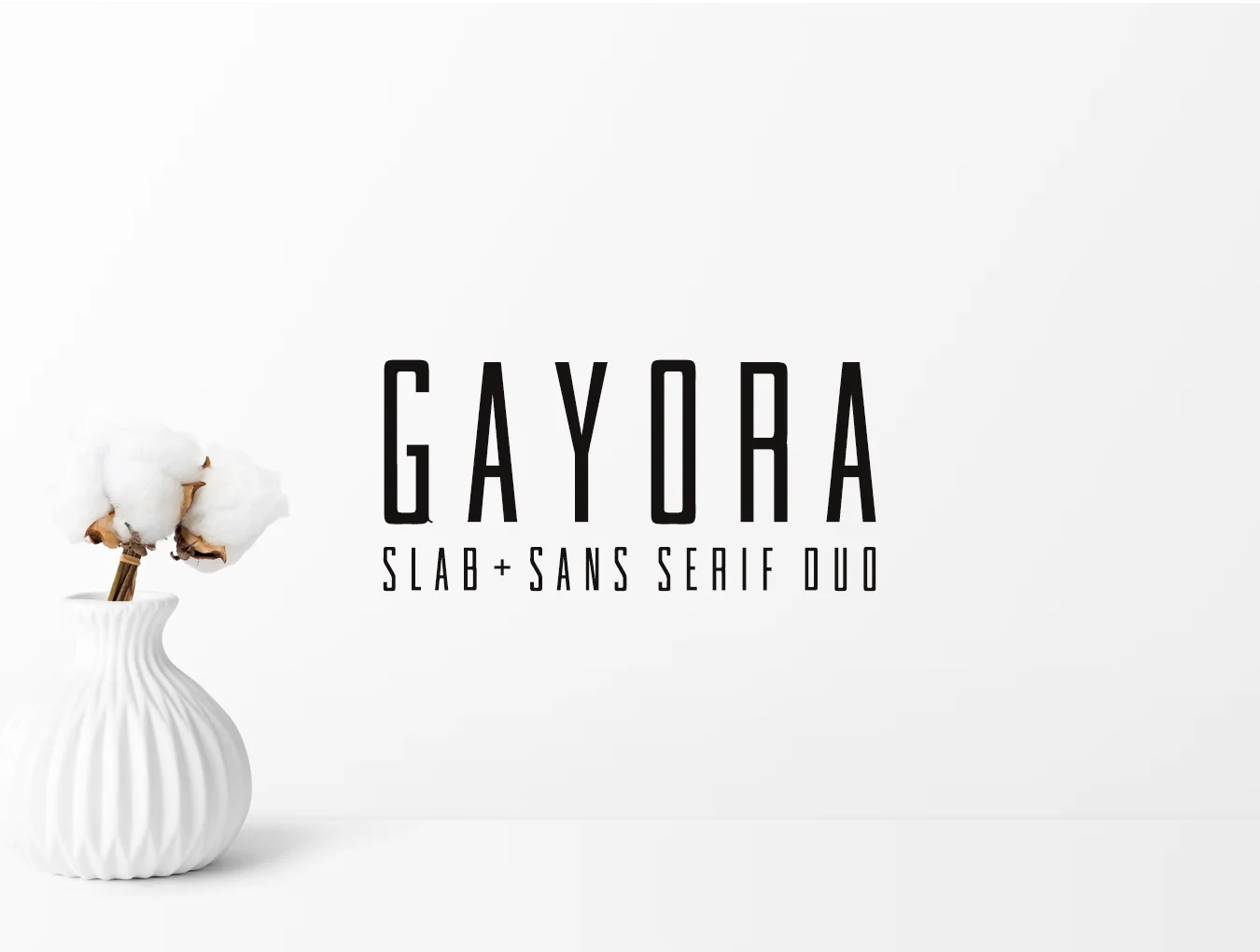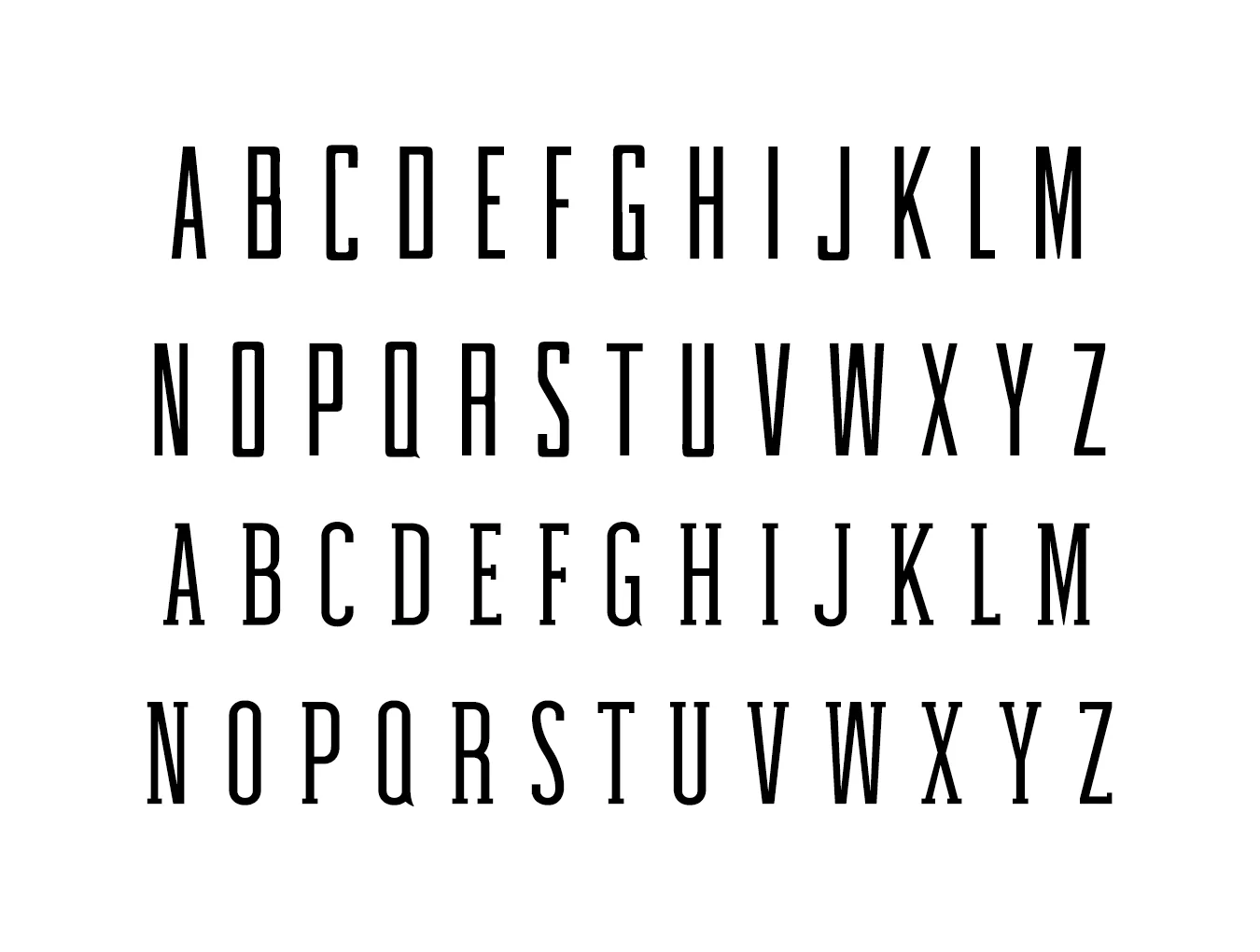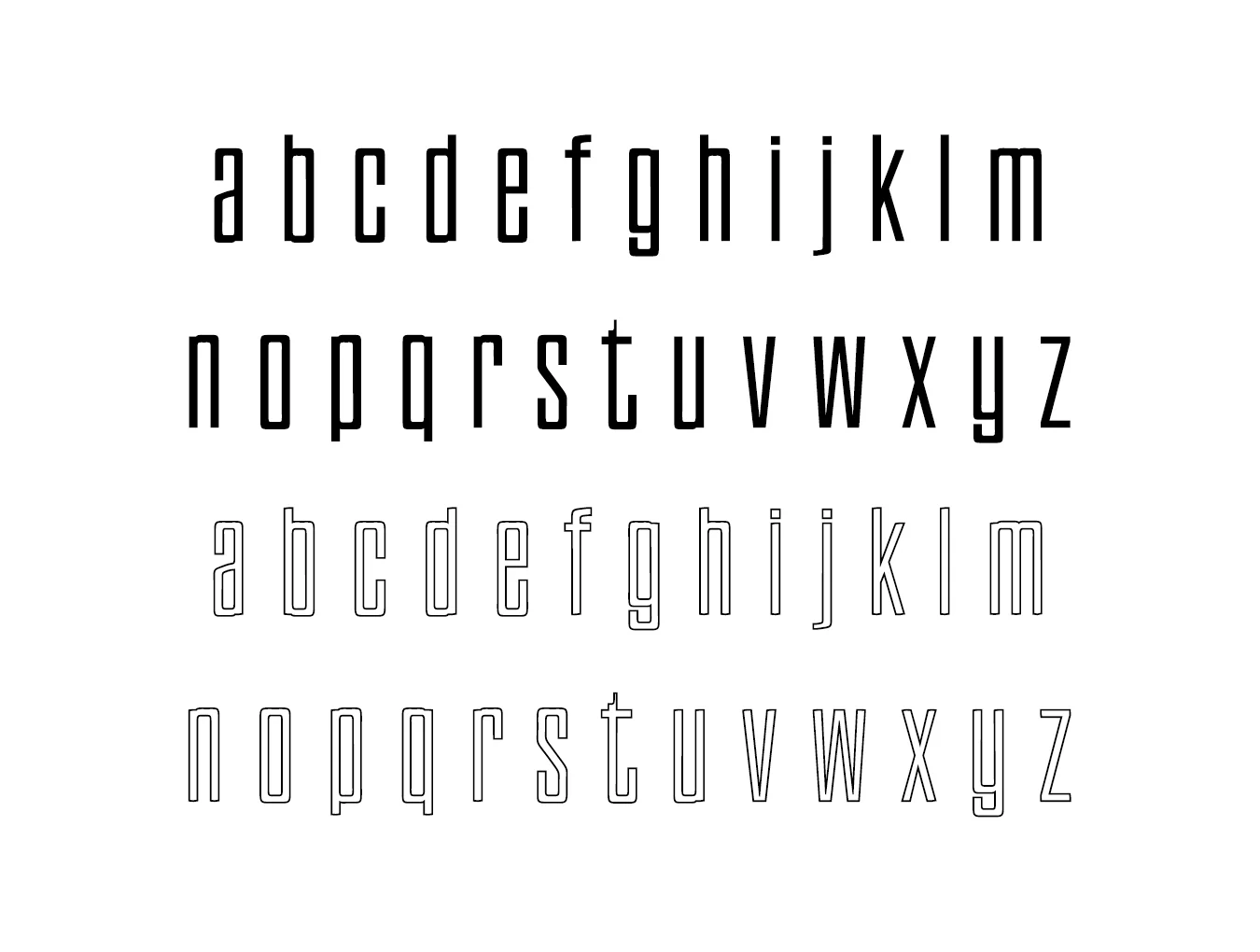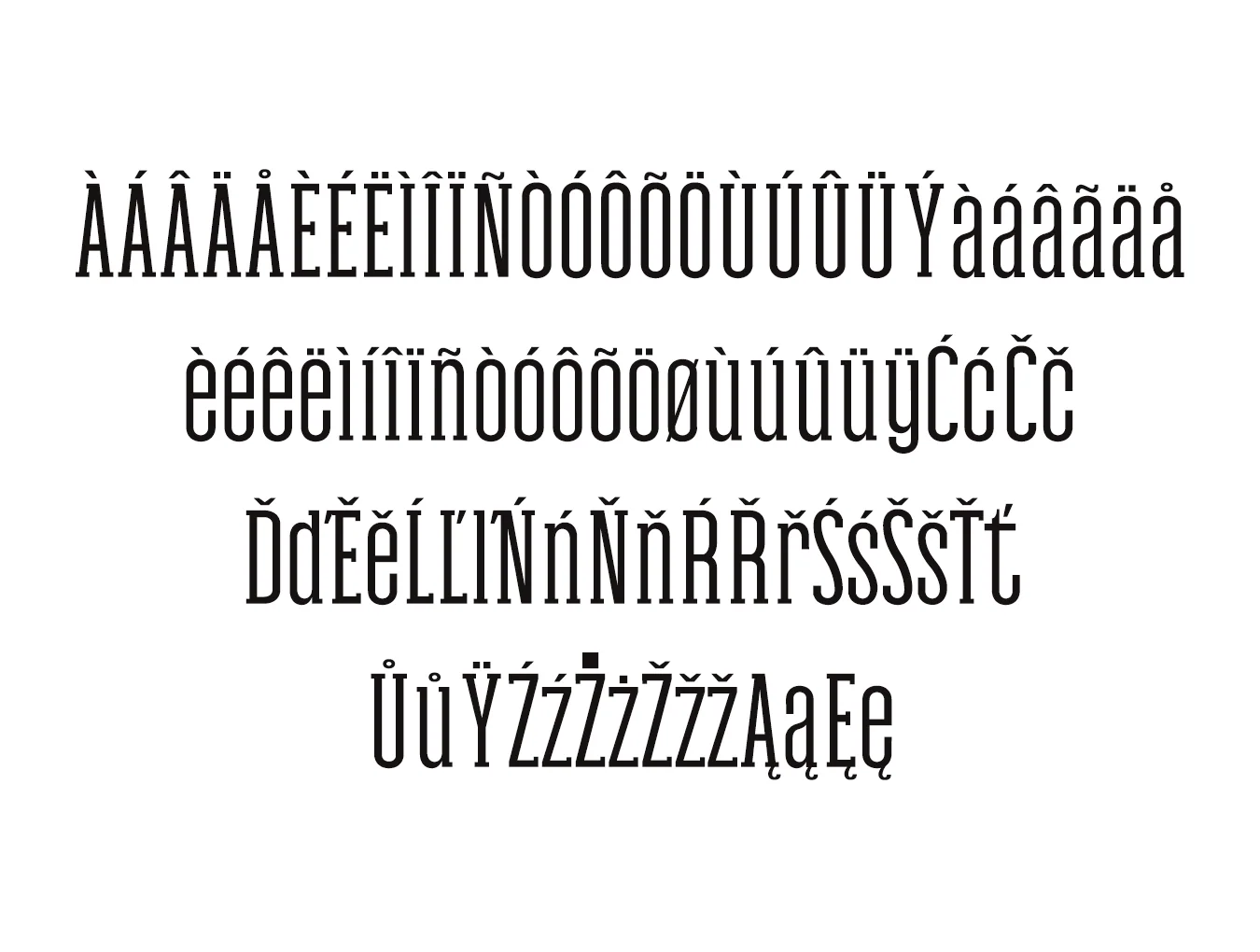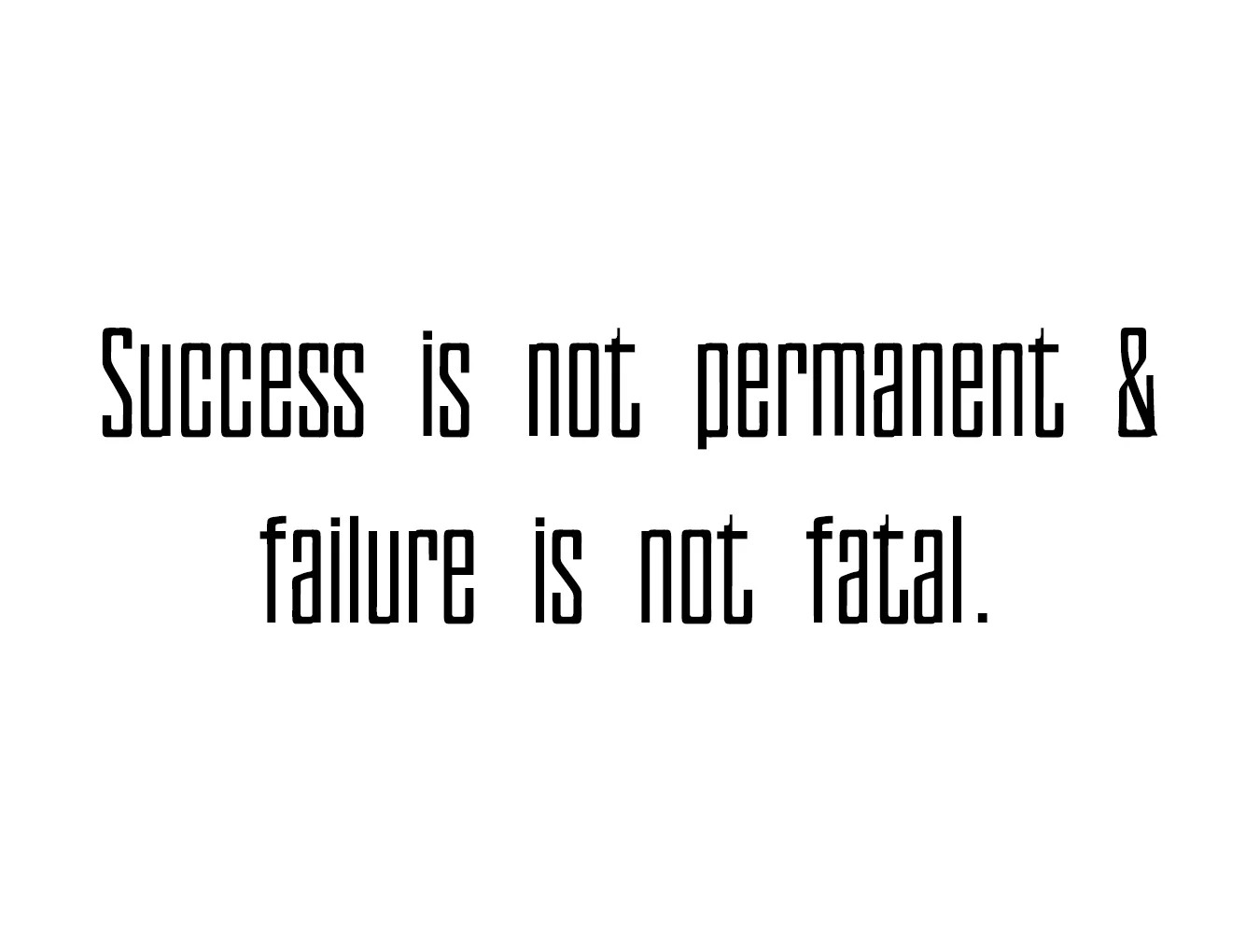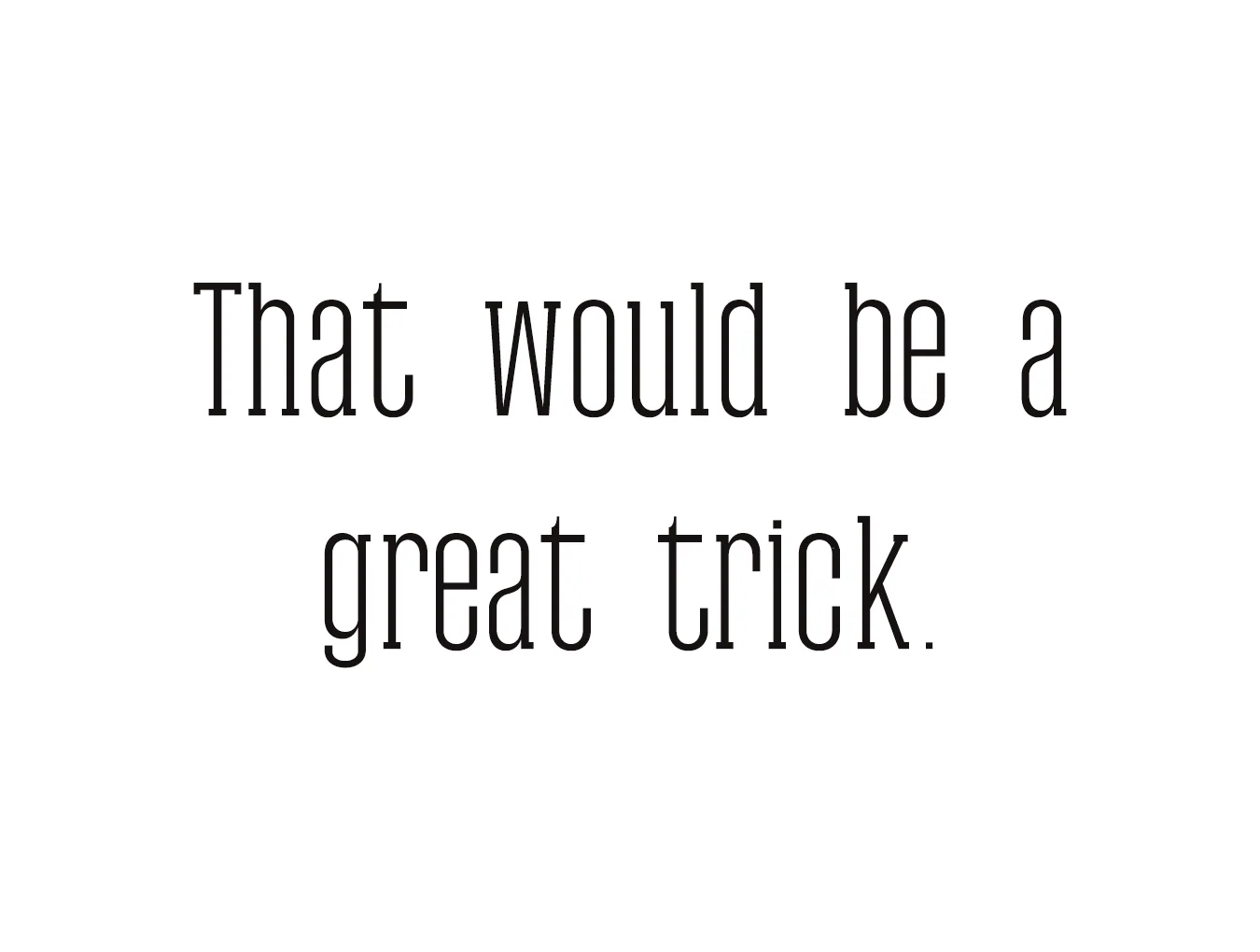
Gayora Slab Serif Duo
Sans and slab serif type styles
318 glyphs each for Gayora and Tamra
Numerals and punctuation marks
Gayora Duo is a fresh, lively minimalist serif pairing with sans and slab influences. Its distinctive character suits headlines, wedding invites, greeting cards, T-shirts, branding, logos, merchandise, social posts, packaging, and other creative work. Includes Cabales in Regular, Light, Outline and Tamra in Regular, Thin, Light, Outline.